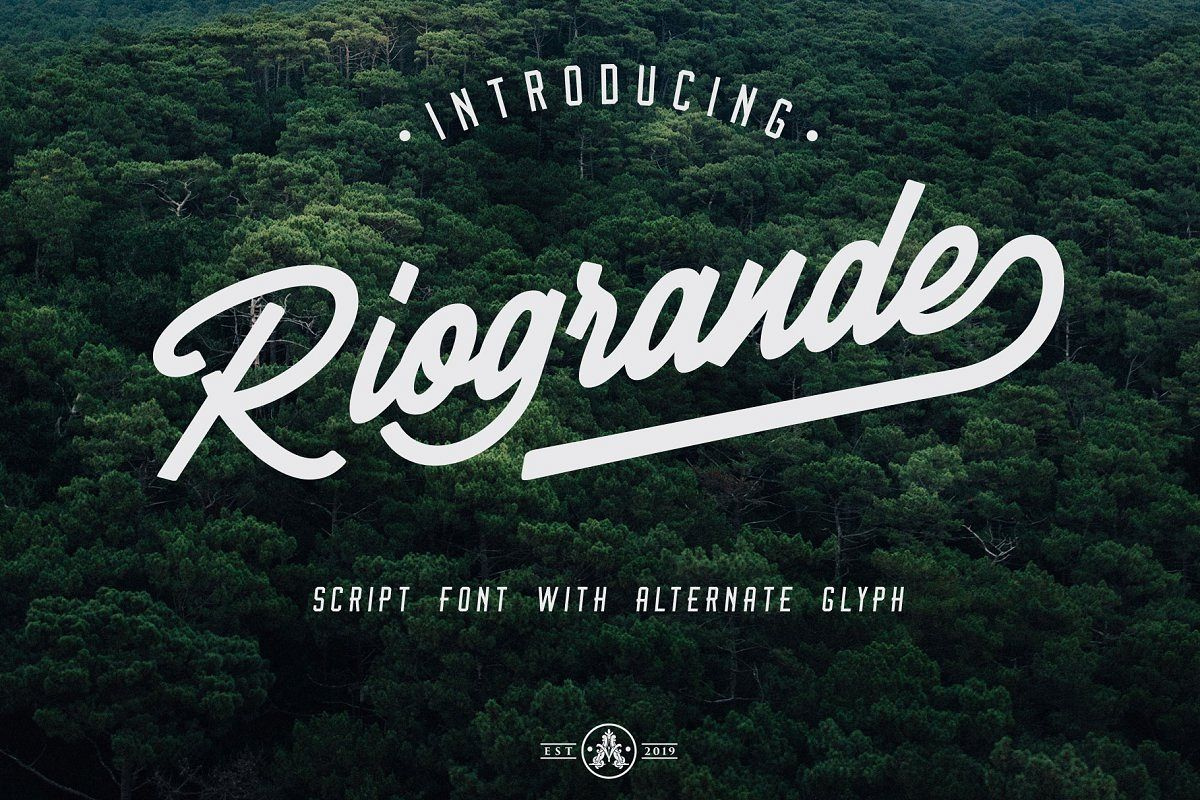
Riogrande Script Font
Riogrande Script Font is perfect for Western-themed restaurants, country music branding, rodeo event marketing, southwestern tourism, rustic wedding invitations, ranch logos, cowboy apparel, frontier museums, desert adventure campaigns, and authentic American West designs.
What makes Riogrande Script Font exciting is its adventurous spirit that captures the rugged beauty of the American Southwest and frontier heritage through authentically crafted letterforms. This distinctive script typeface combines Western charm with flowing elegance, creating a personality that communicates freedom, adventure, and genuine frontier authenticity. The font's Western-inspired character and adventurous appeal make it perfect for brands seeking to evoke the magnificent landscapes of the Rio Grande valley and the bold spirit of American frontier tradition.
The Riogrande Script Font family includes Regular, Bold, Light, Medium, Rustic, Adventure, Condensed, and Western variants. Each weight maintains the font's frontier character while providing comprehensive typographic flexibility for Western brand identity systems and adventure design applications across diverse outdoor platforms.
Whether you're developing Western brand identities, creating outdoor marketing materials, designing ranch signage, or building adventure tourism campaigns, Riogrande Script Font delivers unmatched Western appeal and frontier authenticity. Its adventurous presence makes it perfect for Western restaurants, outdoor outfitters, country music venues, and adventure tourism companies seeking authentic frontier representation.
The font's flowing proportions and rustic details create an inspiring reading experience that transports audiences to the vast landscapes of the American Southwest and adventurous frontier territories. Each letterform has been carefully crafted to preserve Western calligraphic tradition while maintaining excellent readability across modern adventure applications.
This versatile typeface excels in outdoor environments, offering designers the authenticity needed for comprehensive Western brand communication strategies. The extensive character set includes frontier alternates, Western ligatures, and adventure symbols for outdoor market positioning and frontier brand storytelling.